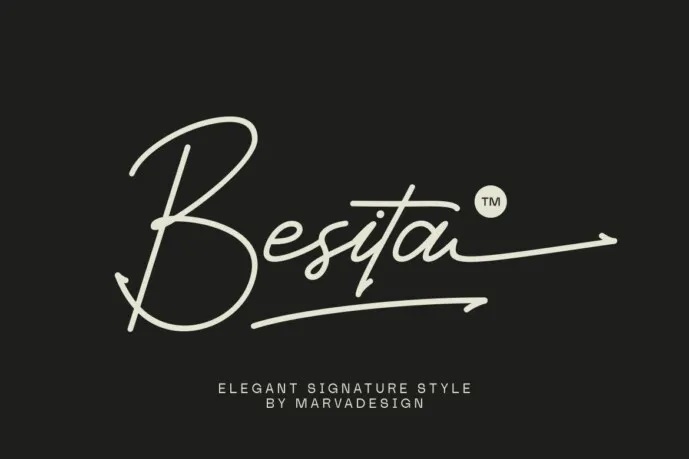
Besita Font
Besita Elegant Script Font is a beautiful script font that reflects elegance, and simplicity. The lines of this typeface are gentle and smooth and rounded at corners and thus give a luxury look. Because its script type looks like it was handwritten, it is perfect for any project, which ought to be personal and classy, such as signatures, brand creation, logos, etc.
This design makes Besita functional not just in several categories, but also in a variety of styles and designs without overpowering the layout. For business image, product dispatch and all other purpose invitations, there is hardly a better choice than Besita, the design looks professional and stylish.
Besita Signature Script Font